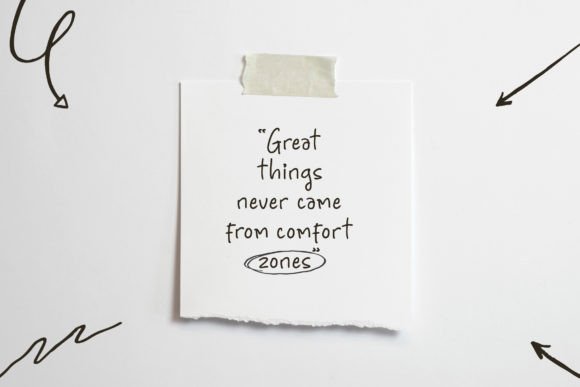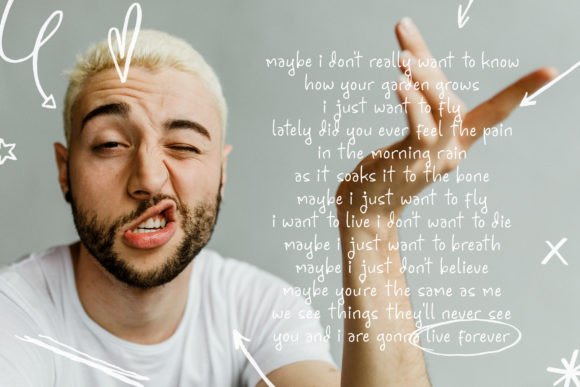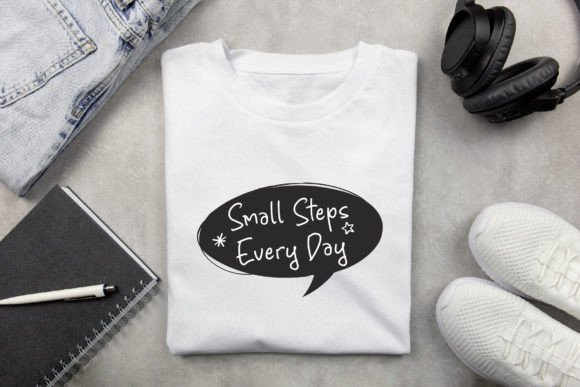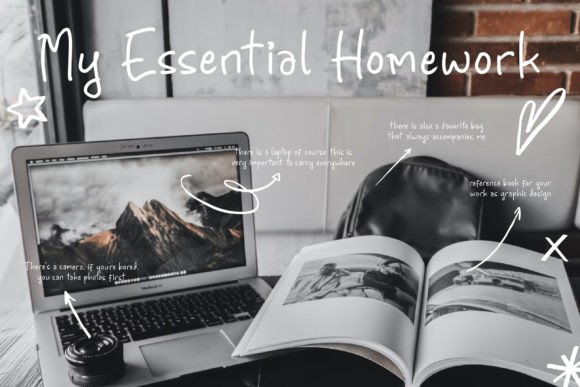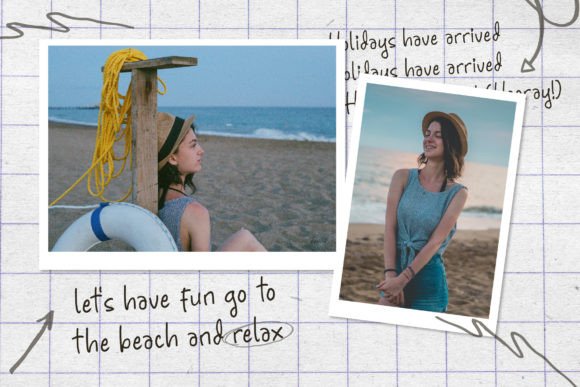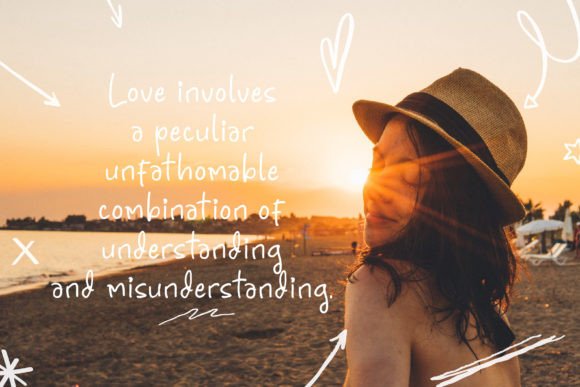
Introduction to Guide Notes Font
Guide Notes – Natural Handwritten Font suitable for any projects such as logos, branding projects, homeware designs, product packaging, mugs, quotes, posters, shopping bags, t-shirts, book covers, name cards, invitation cards, greeting cards, labels, photography, watermark, special events, and all your other lovely projects that need a beautiful script taste.
Key Features of Guide Notes Font
Why Choose Guide Notes Font?
Guide Notes Font offers exceptional quality and versatility, making it a valuable addition to your design toolkit. Whether you’re creating for personal projects or commercial use, Guide Notes Font delivers professional results.